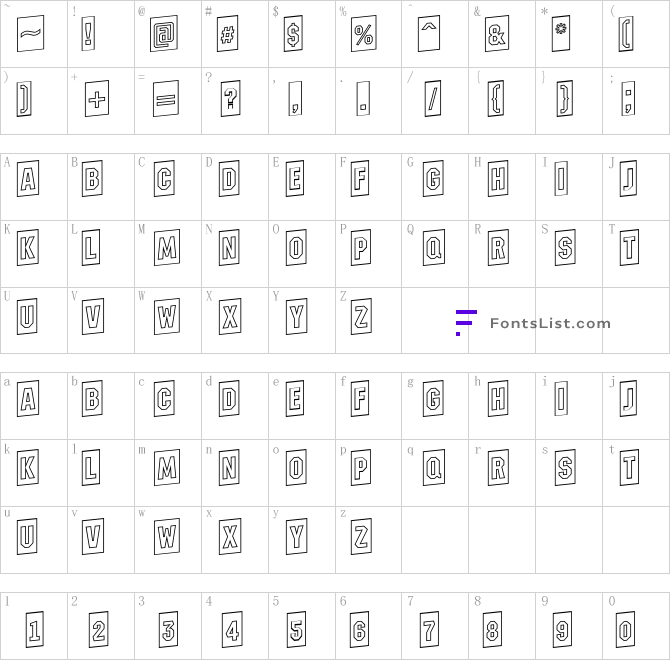
- Font Name:a_MeccanoCmOtlUp
- Full Name:a_MeccanoCameoOutlineUp
a_MeccanoCameoOutlineUp.ttf is a very beautiful artistic font, a_MeccanoCameoOutlineUp.ttf is widely used in the design and printing of various books and pictures,a_MeccanoCameoOutlineUp.ttf has a strong visual impact,a_MeccanoCameoOutlineUp.ttf is a commonly used font in newspapers, magazines and books, and is used in posters, e-commerce Poster design, store design, logo design, font design and other fields.a_MeccanoCameoOutlineUp.